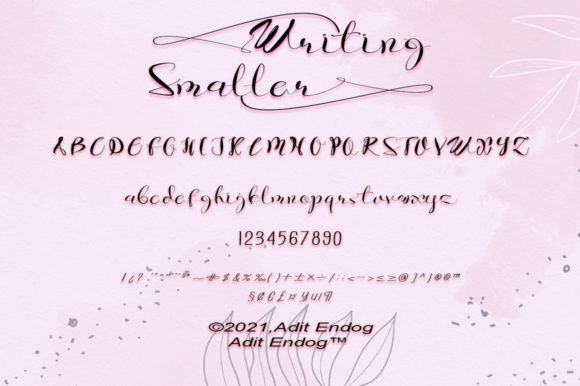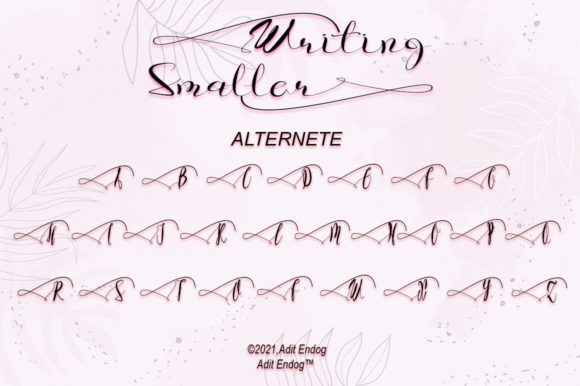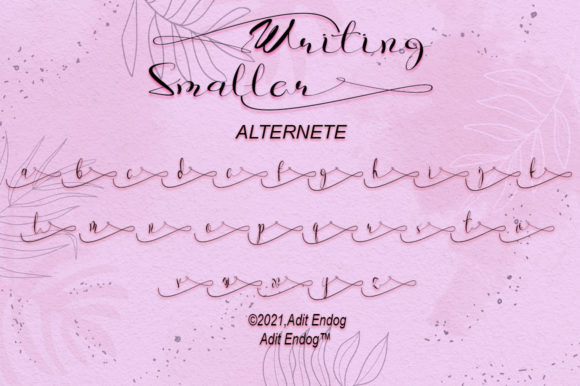
Writing Smaller Font
About Writing Smaller Font
Writing Smaller is a magical script font carefully created with a touch of elegance. This font is PUA encoded which means you can access all of the glyphs and swashes with ease!